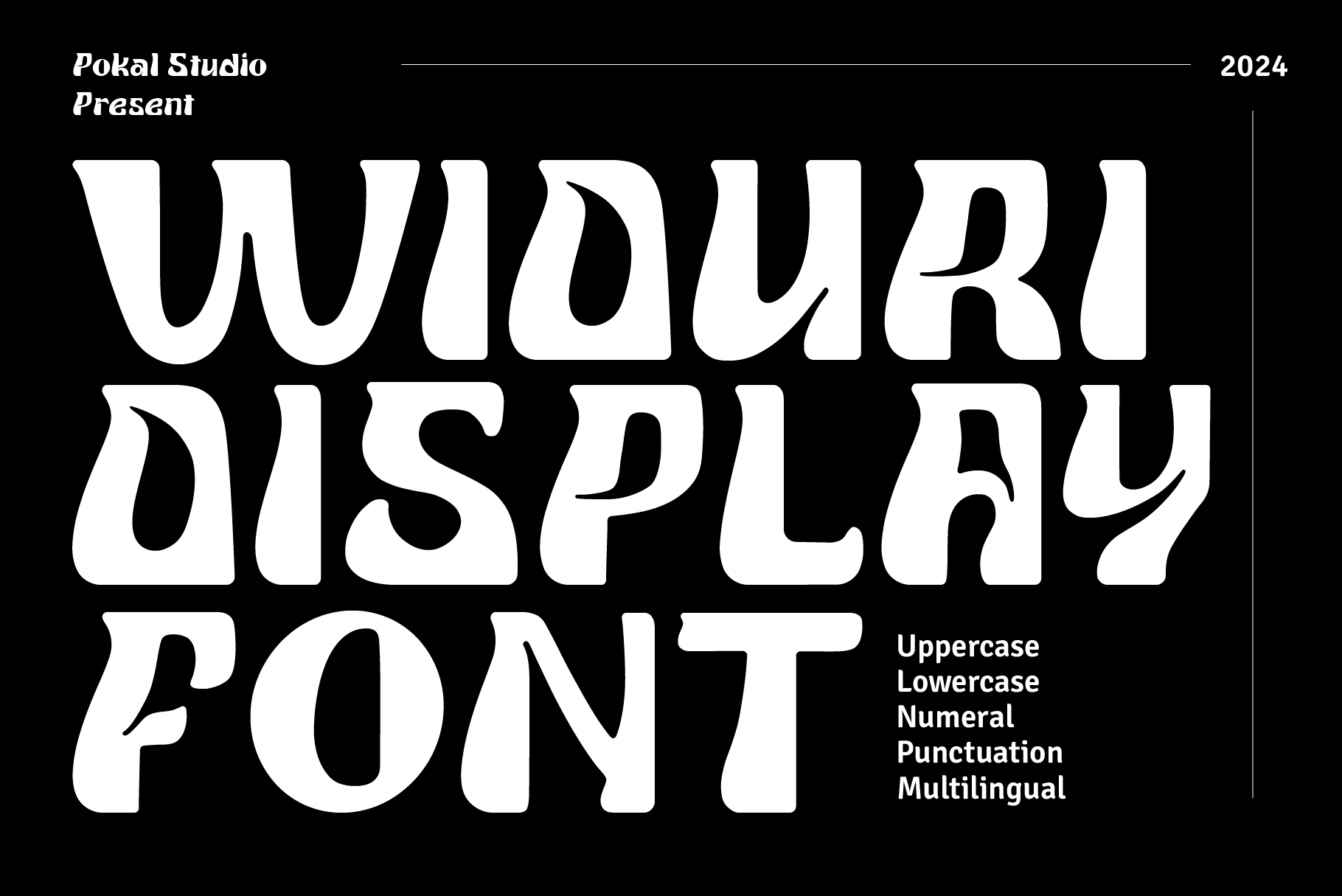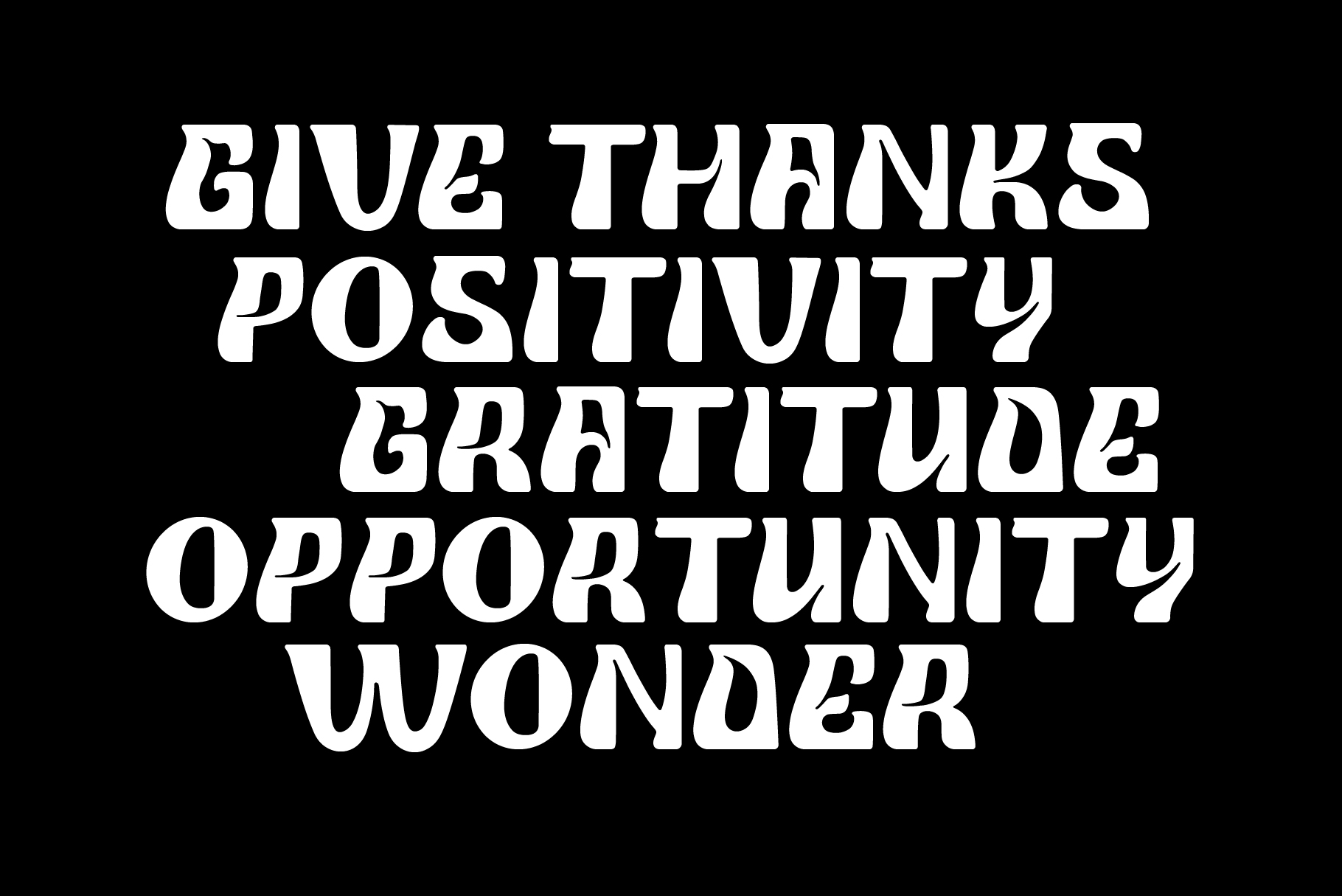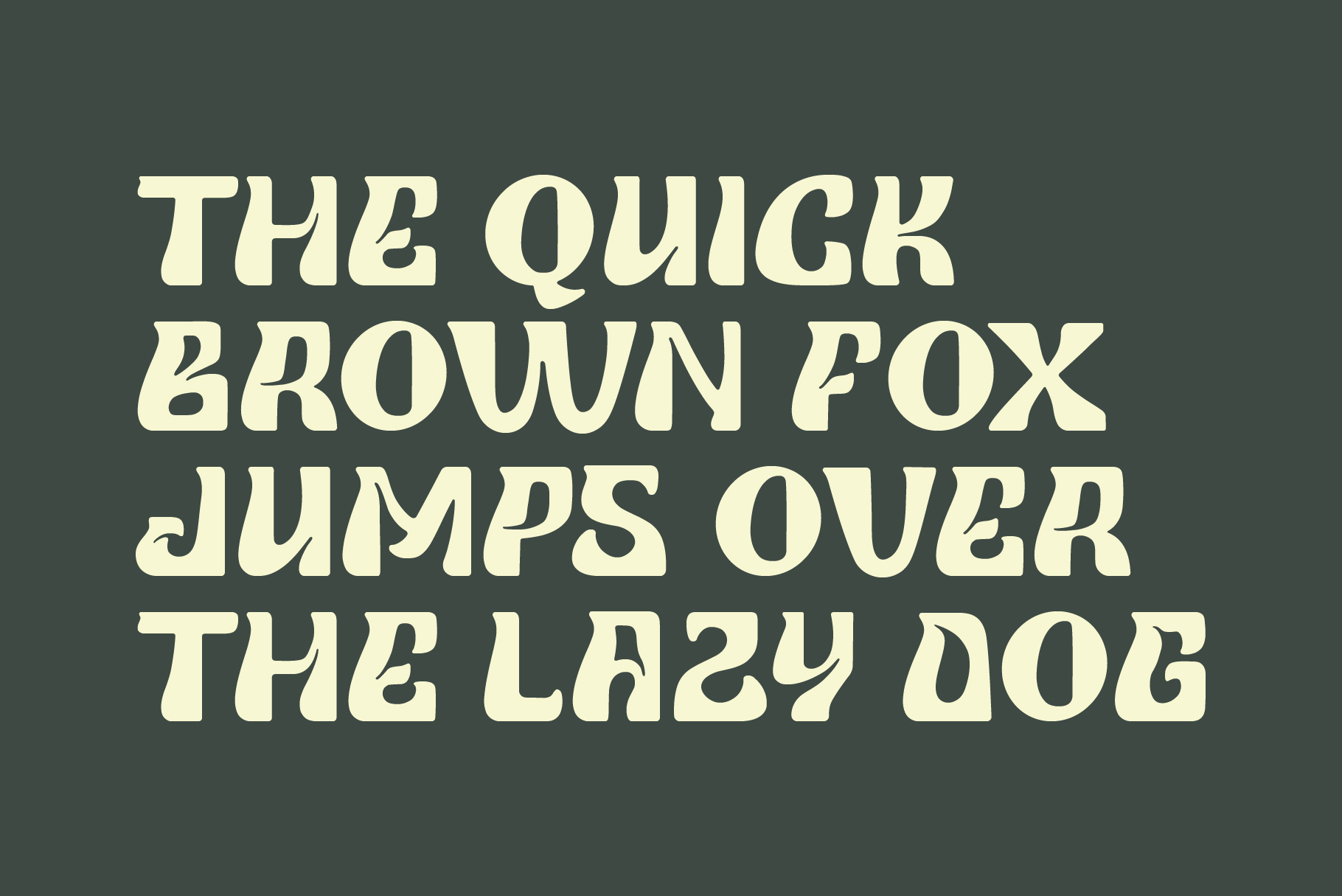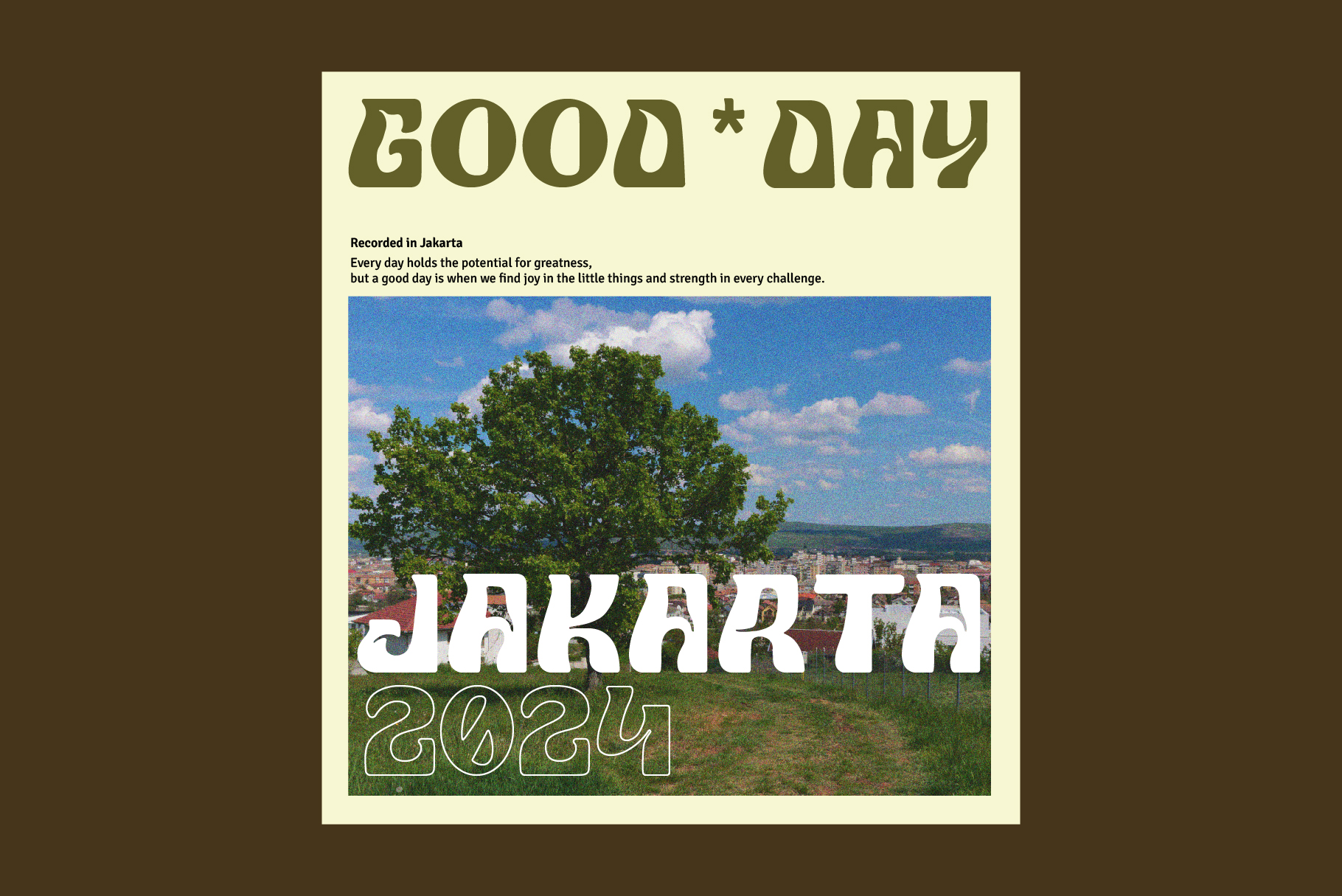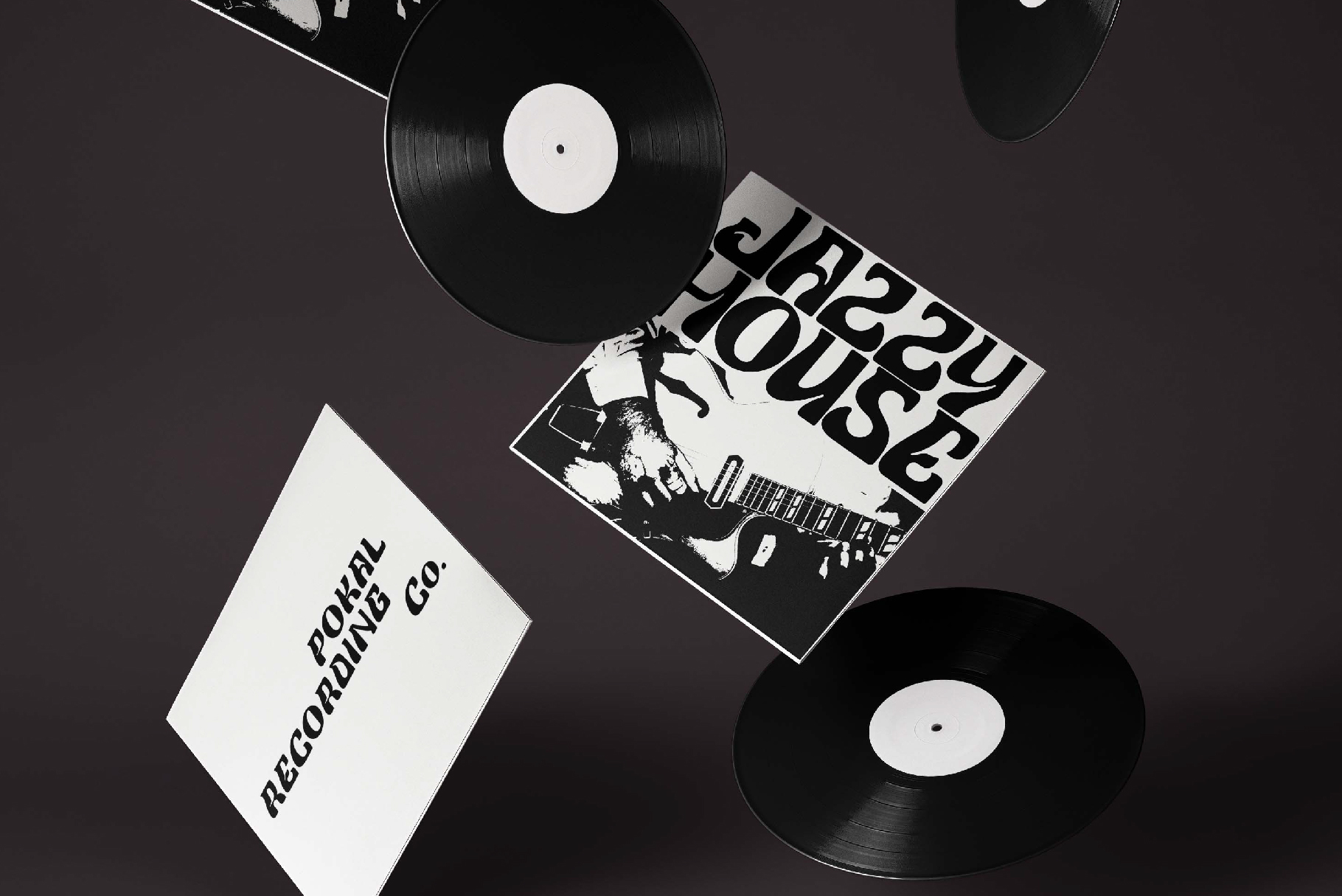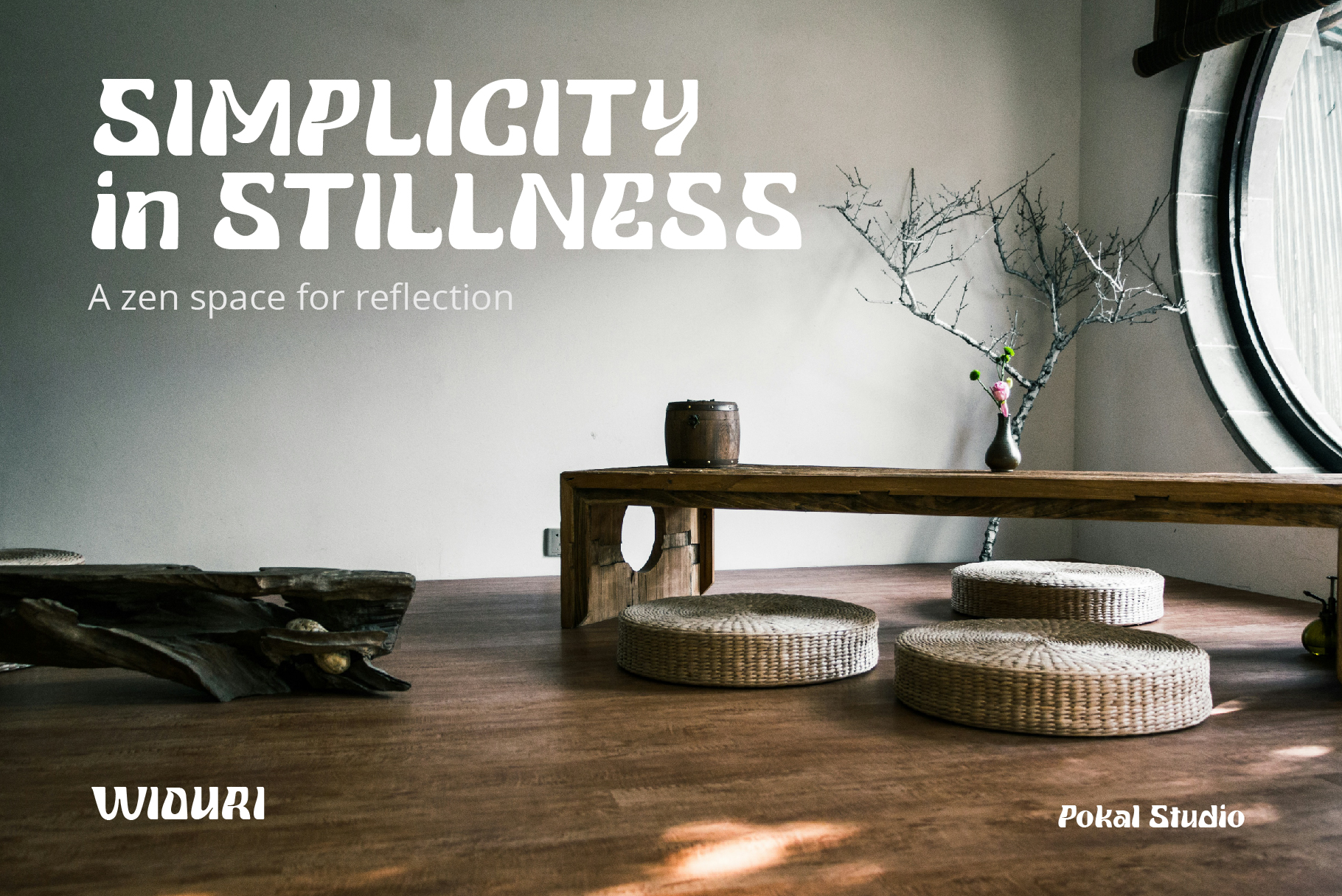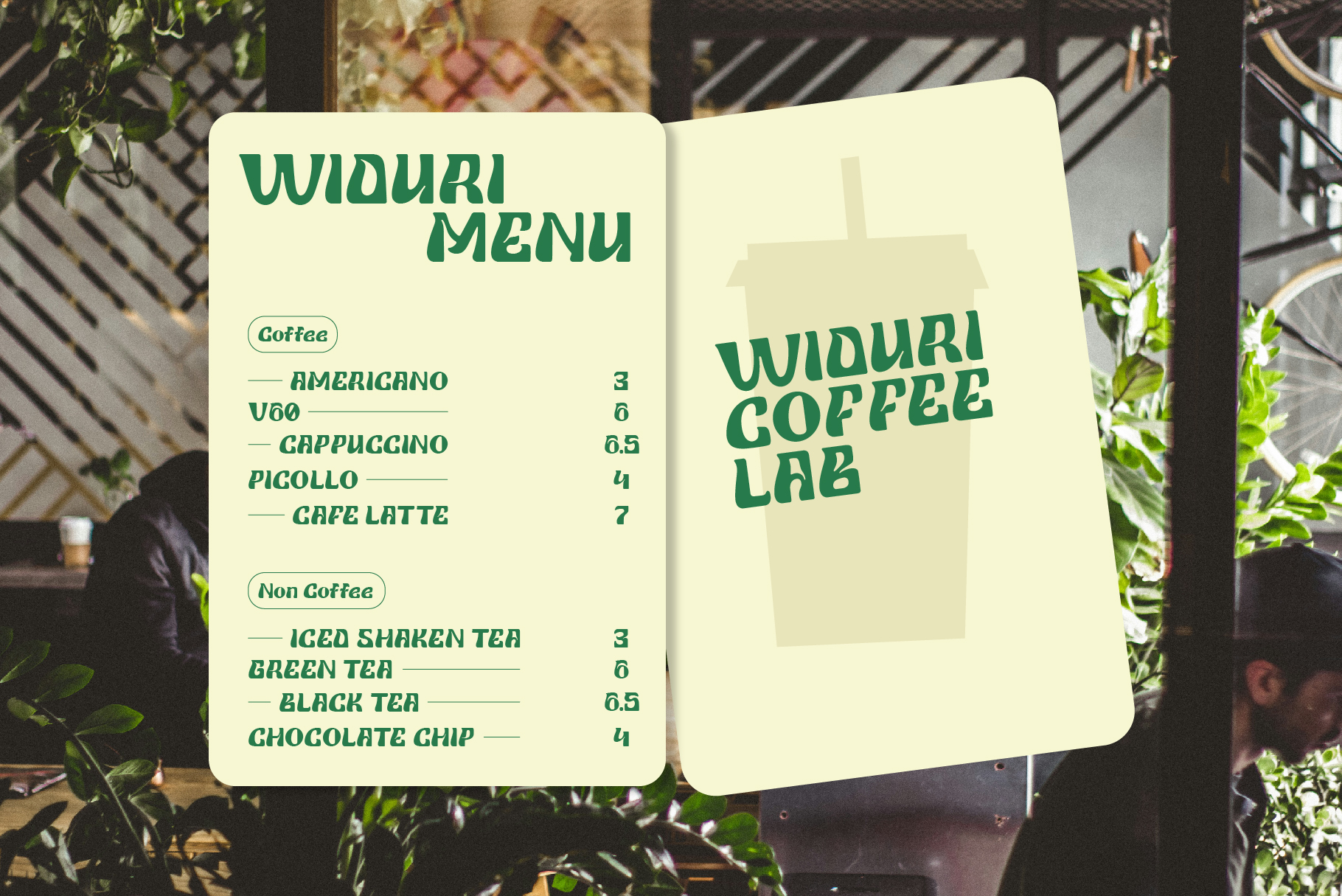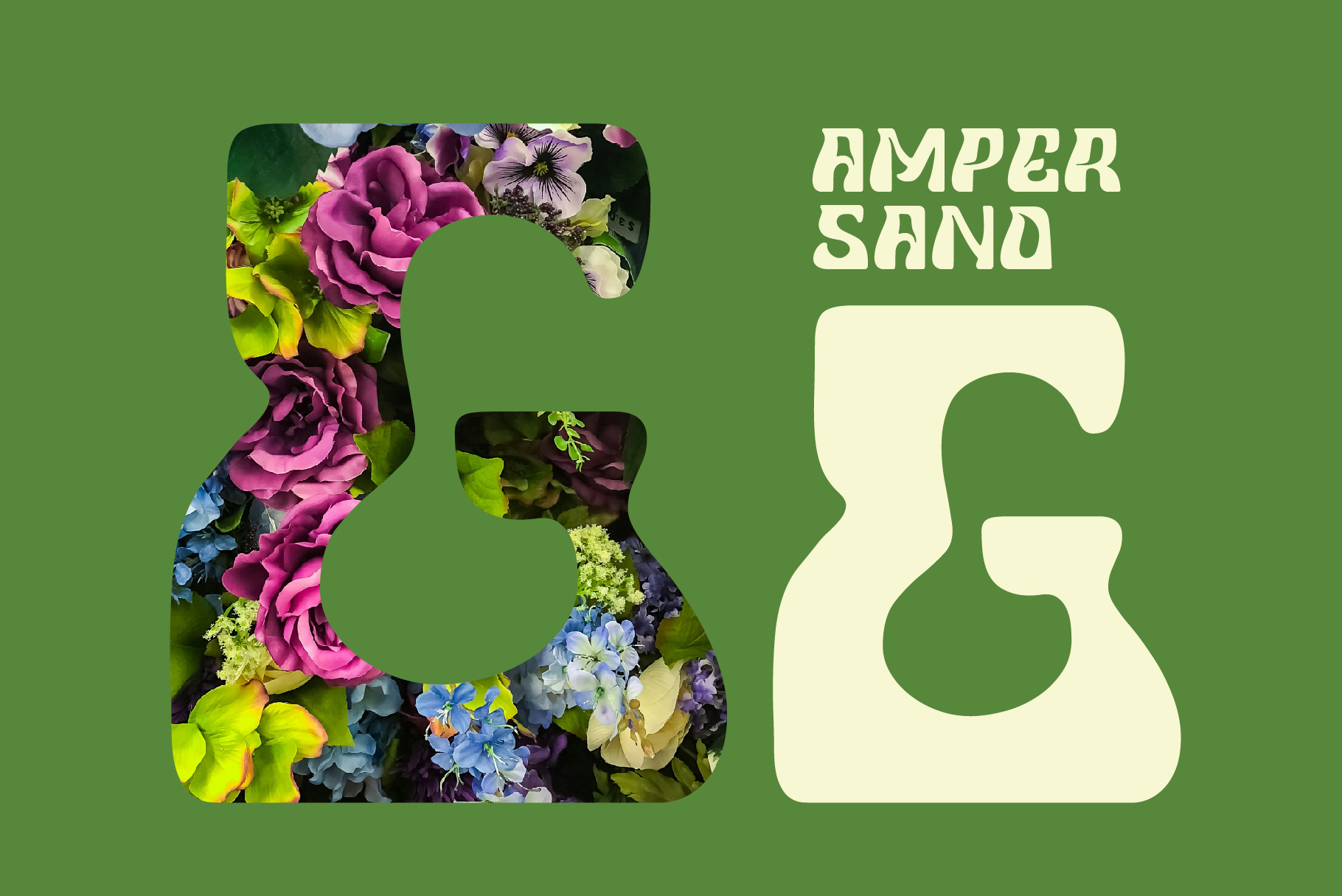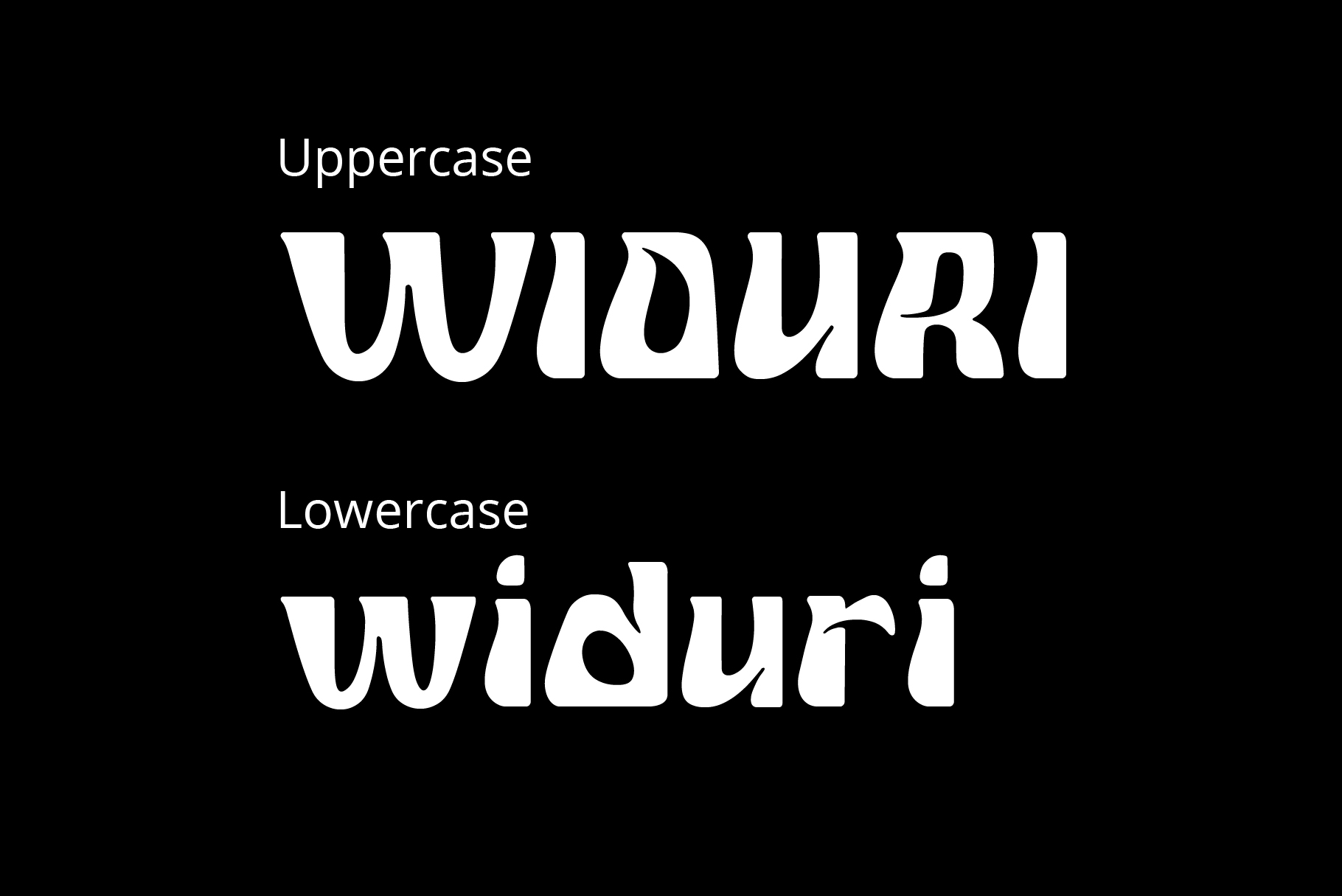
Widuri – Display Font
About Widuri - Display Font
Widuri is a bold and decorative display font with a retro flair, perfect for making a statement. Whether you're creating eye-catching labels or impactful headlines, Widuripes, ensuring your text stands out with a touch of aesthetic charm. Whether you're creating eye-catching labels or impactful headlines, Widuri delivers a distinctive and memorable look.